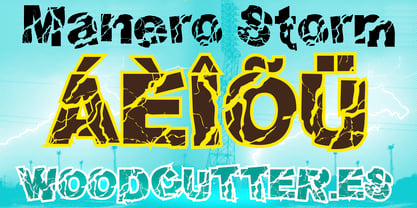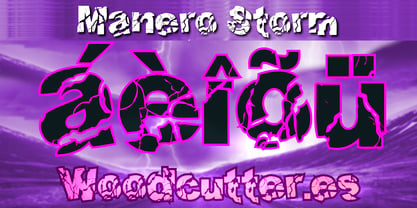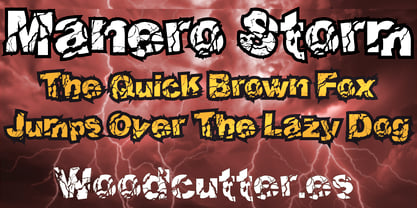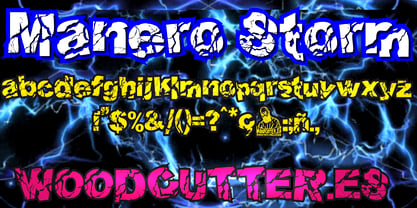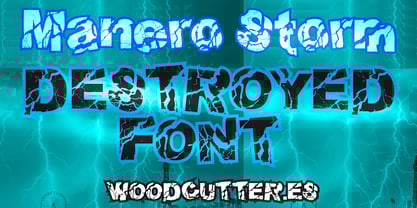
Manero Storm
The Manero Storm Font Family was designed by Jordi Manero and published by Woodcutter. Manero Storm contains 1 styles.
Manero Storm is a devastated typeface — a chaotic reinterpretation of the classic Times New Roman, as if it had been torn apart by a furious storm. Featuring uppercase and lowercase letters with accents, each character looks eroded, shredded, or cracked by uncontrollable forces. The traditional serif structure remains partially intact, but it’s broken and distorted, as though time, wind, and rain had left their violent mark.
The visual effect is one of elegant destruction: an apocalyptic aesthetic that blends the familiar with the wild. The letters resemble relics from a civilization that survived a disaster—still readable, yet scarred by chaos.
Perfect for book covers, post-apocalyptic movie posters, punk designs, or messages that need to convey collapse, rage, or disarray. This font doesn’t whisper—it screams. Manero Storm captures the raw essence of destruction and reshapes it into typographic art. It's not just a font—it’s a storm frozen in ink.